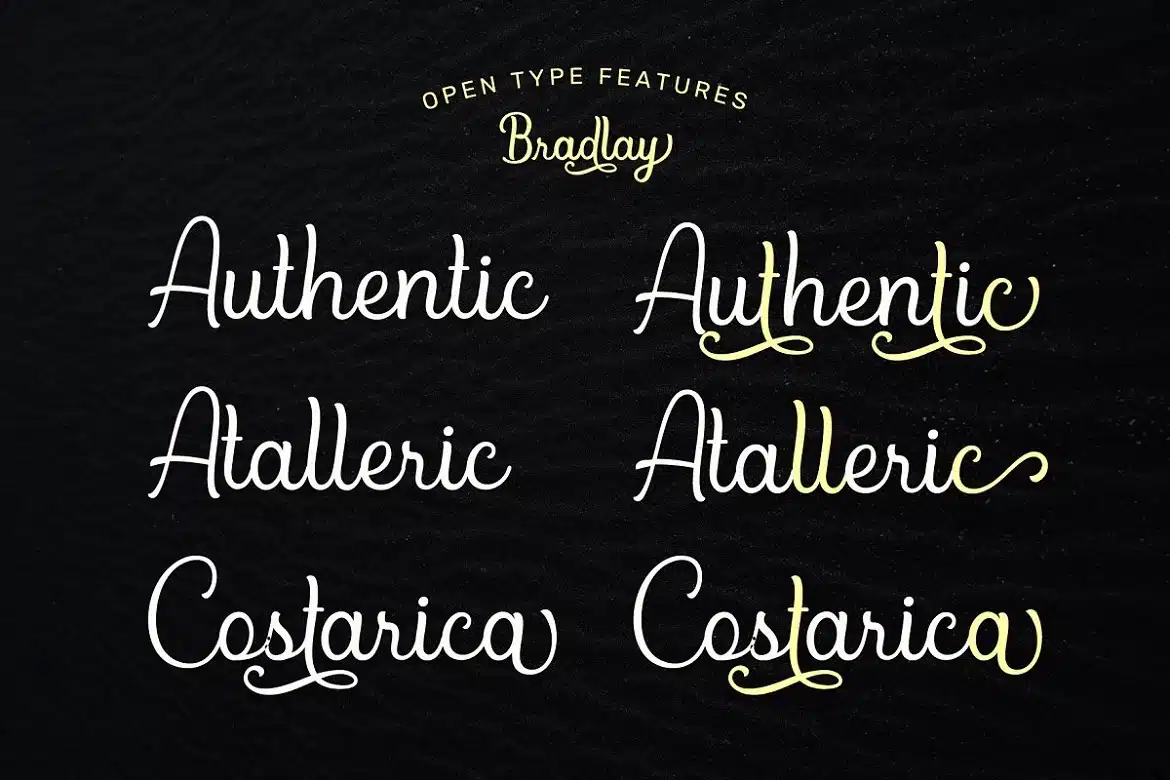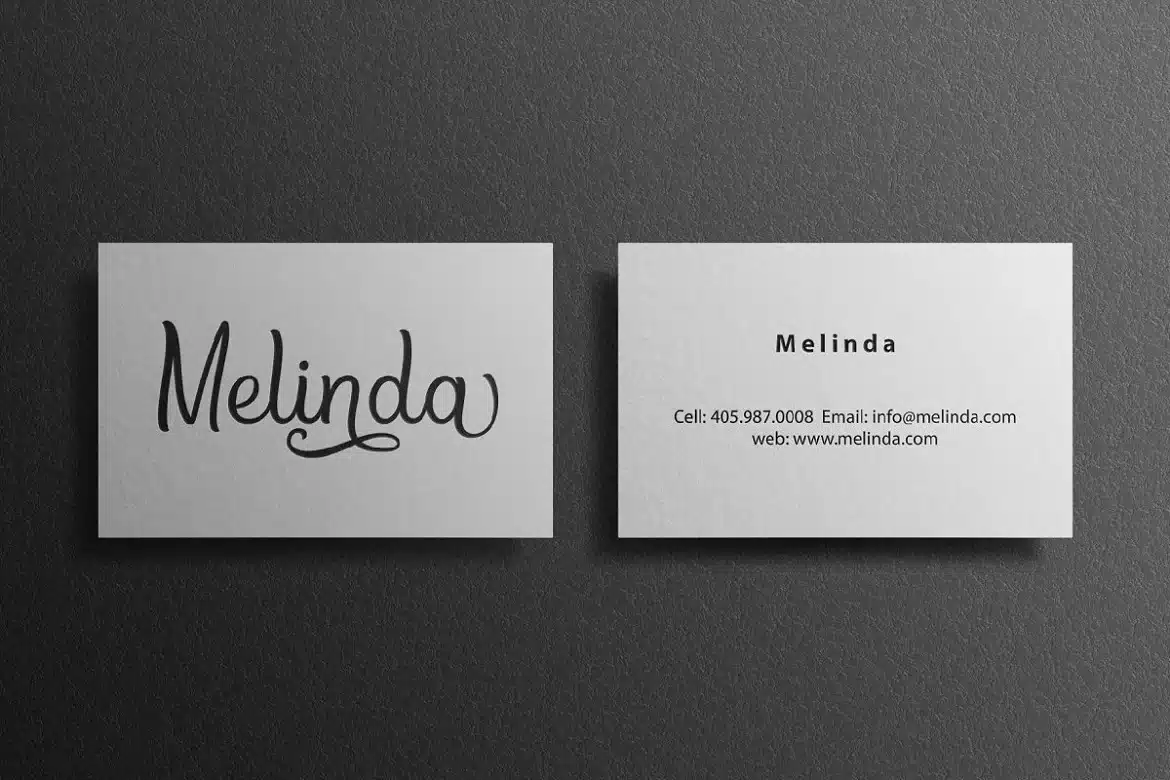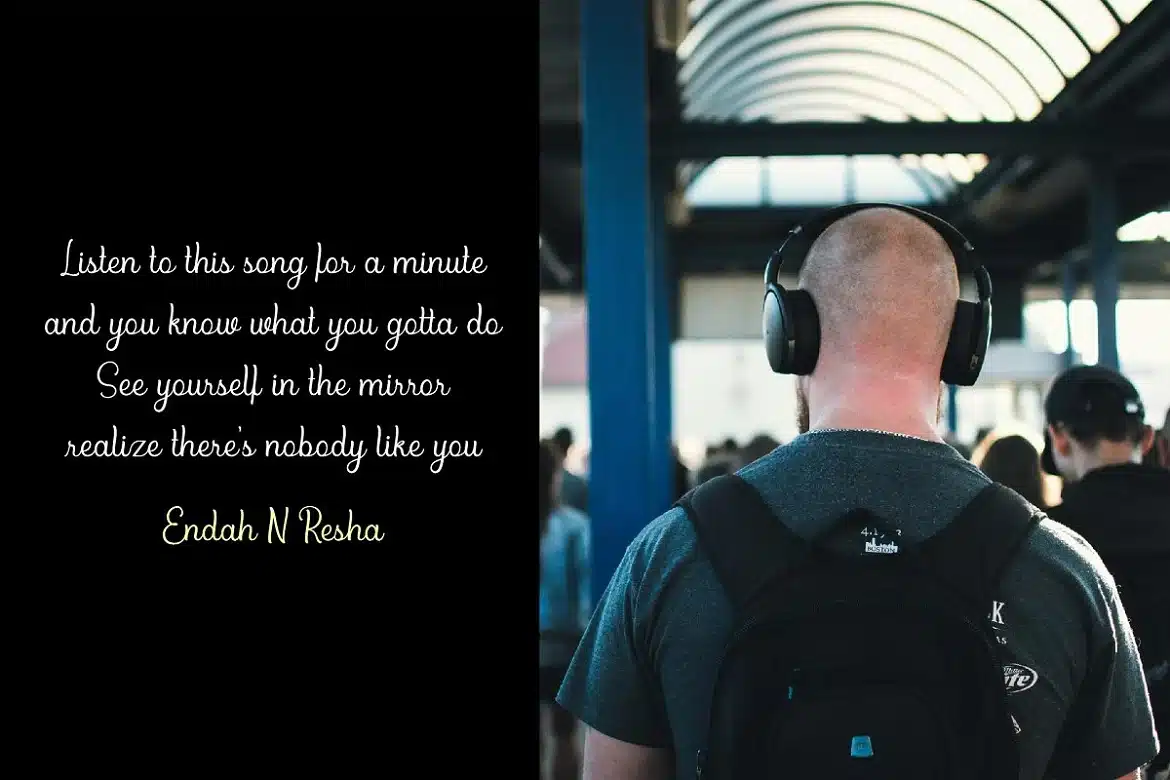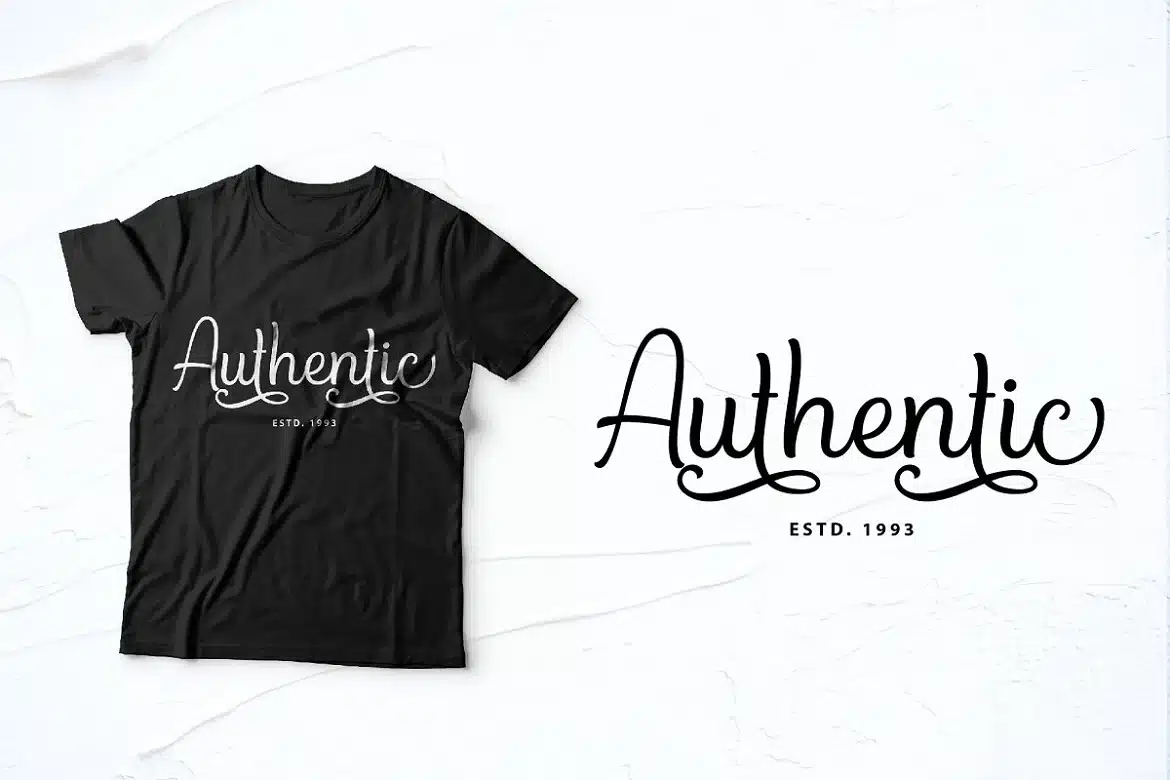
Bradlay Script Font
This font has a neat script style. Overall this font will produce clean, expensive and elegant design. Bradlay that supports decorating your design. It has Multilingual support and works with following languages: English, Danish, Dutch, Estonian, Faroese, Filipino, Finnish, French, German, Hungarian, Icelandic, Irish, Italian, Norwegian, Polish, Portuguese, Spanish, Swedish.
I show how this script can be used. It's very well suited for logotypes, Vintage labels, romantic cards, branding and others.